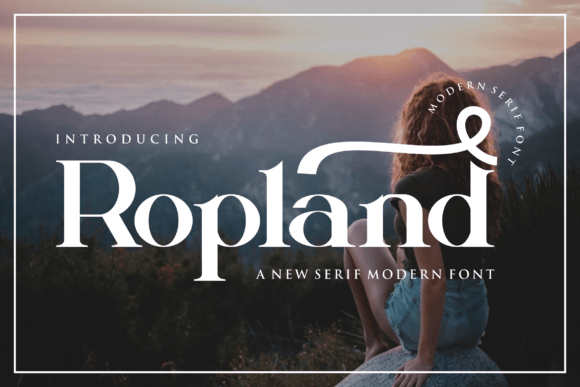
Indulge in the captivating allure of Ropland, a serif font that embodies boldness and authenticity. Its unwavering presence commands attention, making it an ideal choice for branding projects that demand a statement-making impact.
Crafted with meticulous care by the renowned designer kalingga.albert, Ropland exudes a timeless elegance that transcends fleeting trends. Its versatility shines through, effortlessly complementing a diverse array of designs, from minimalist logos and eye-catching t-shirt prints to the dynamic world of esports.
Ropland's presence will elevate your designs to new heights, captivating audiences with its inherent sophistication. Its clean lines and sharp angles create a striking visual contrast that commands respect and admiration. Whether you seek a font that exudes confidence or one that whispers allure, Ropland seamlessly adapts to your creative vision.
Embrace the power of Ropland and witness the transformation of your branding efforts. Its versatility empowers you to create designs that resonate with your audience, leaving an unforgettable impression that sets you apart in the competitive market.